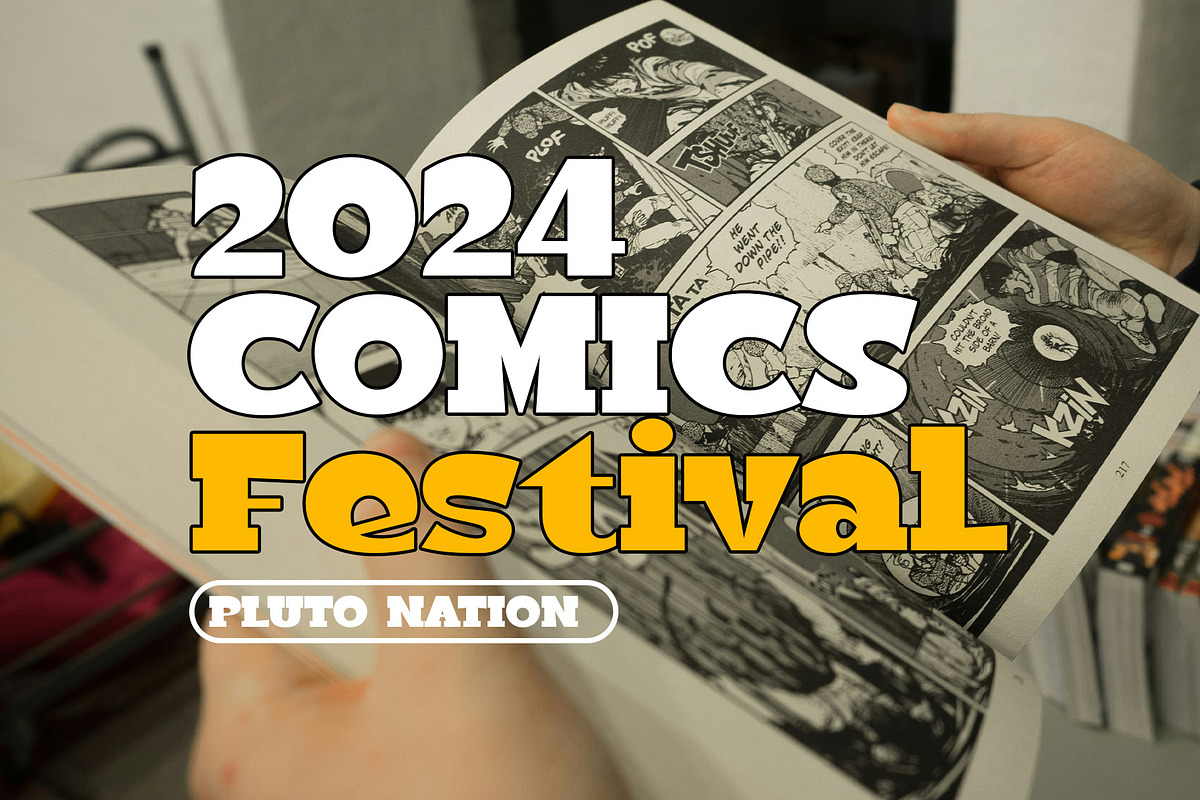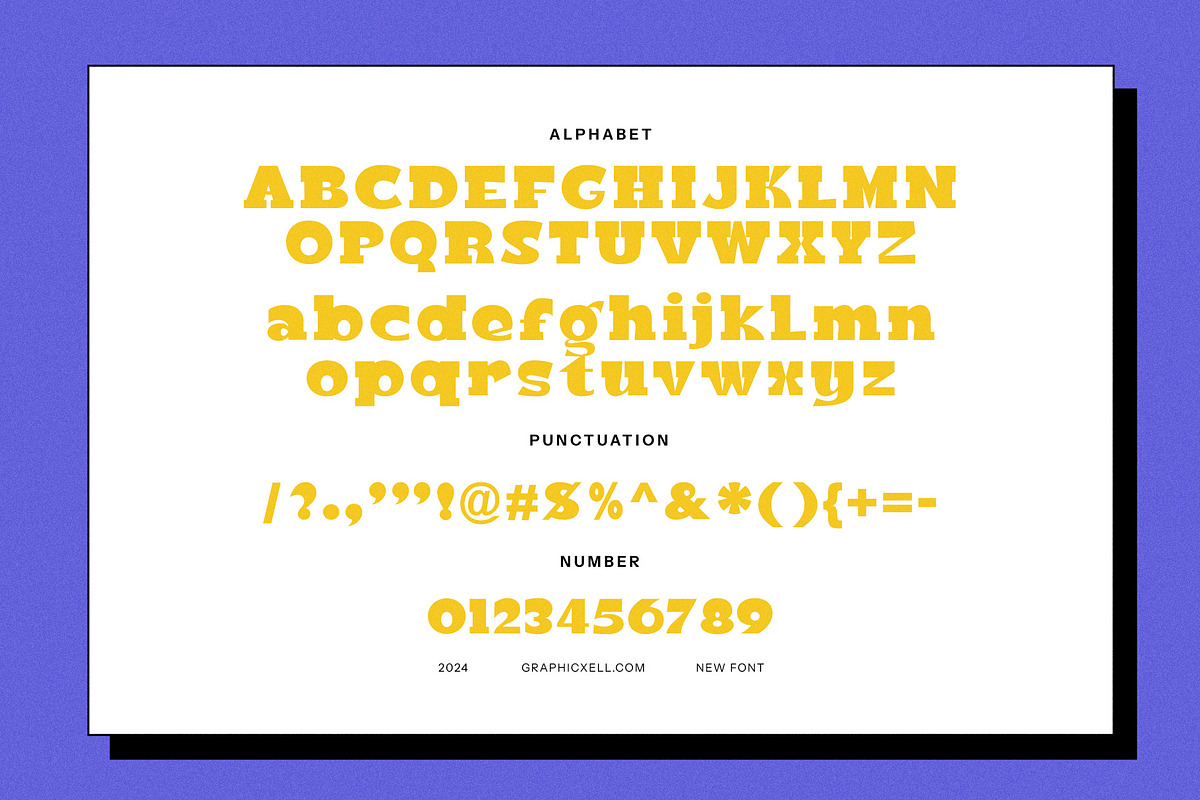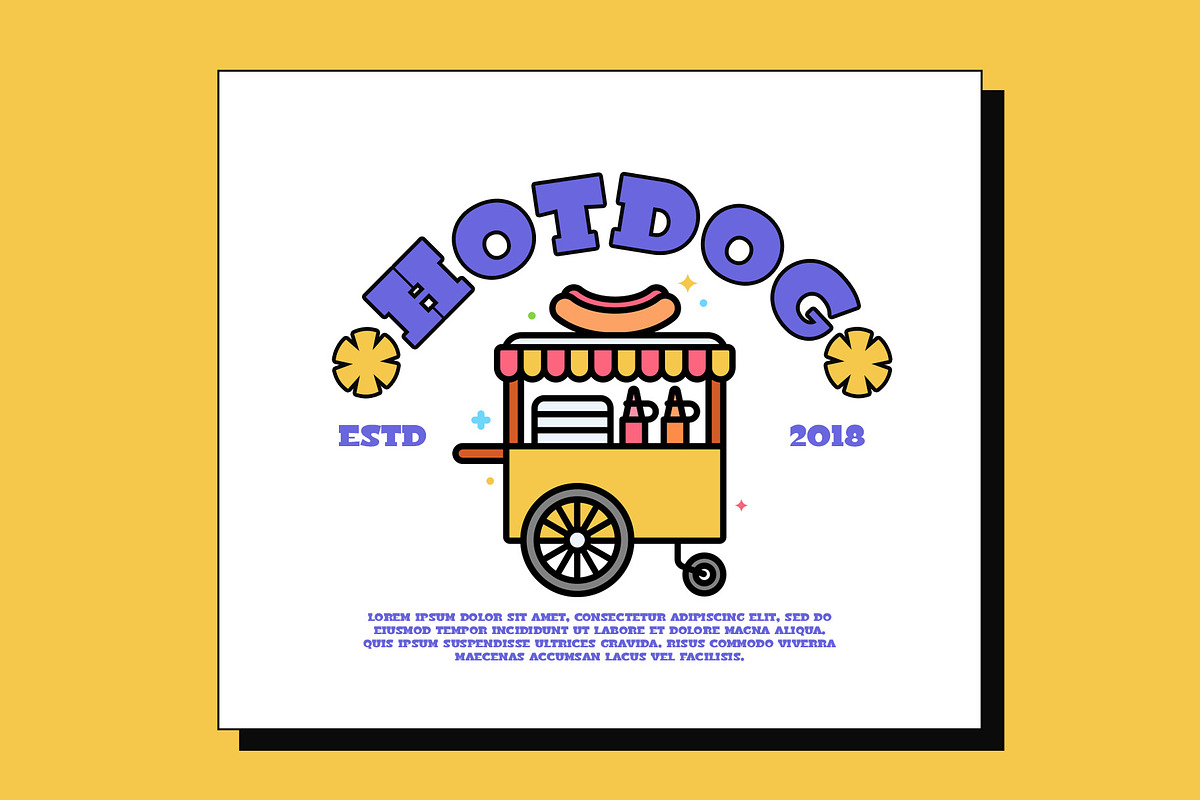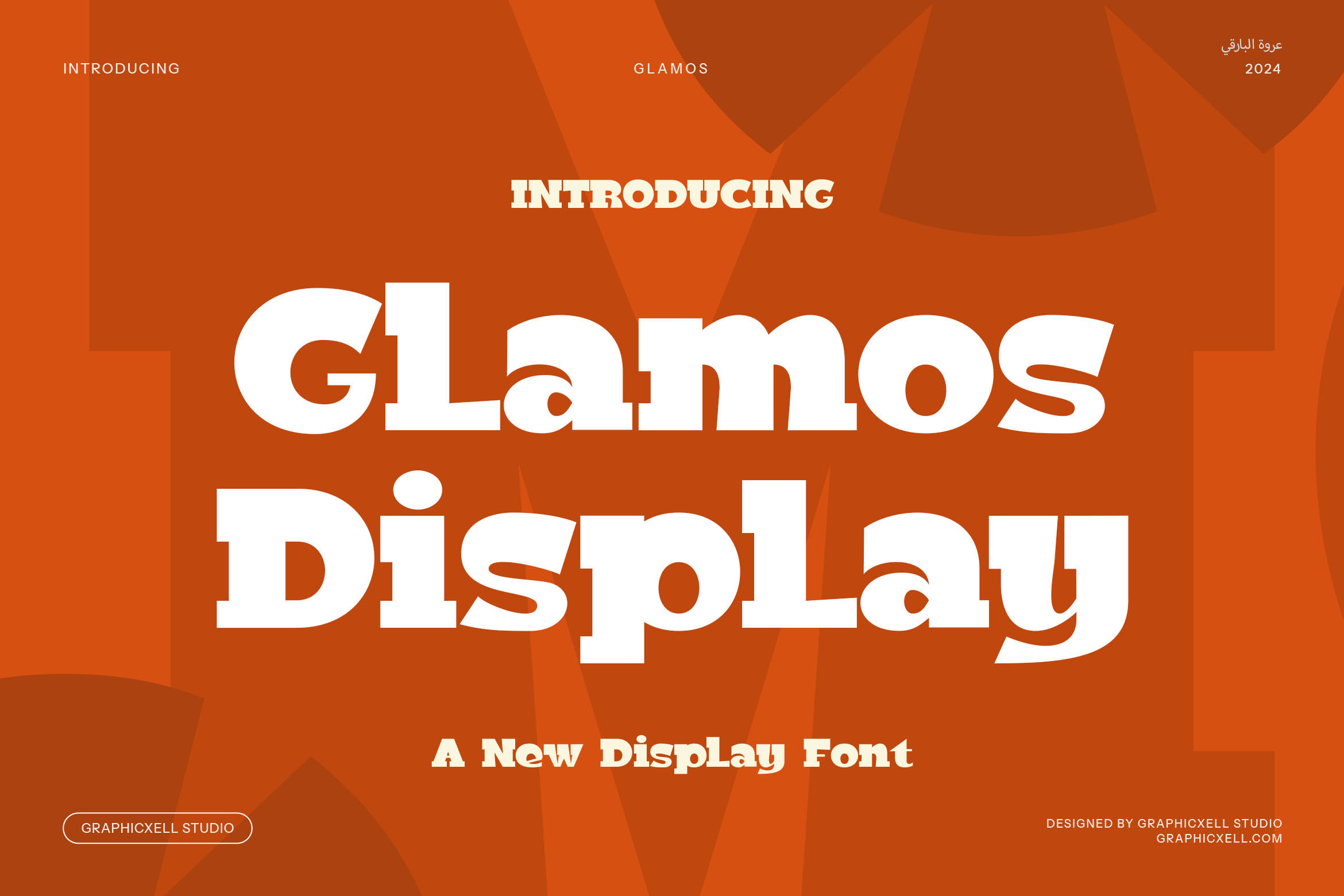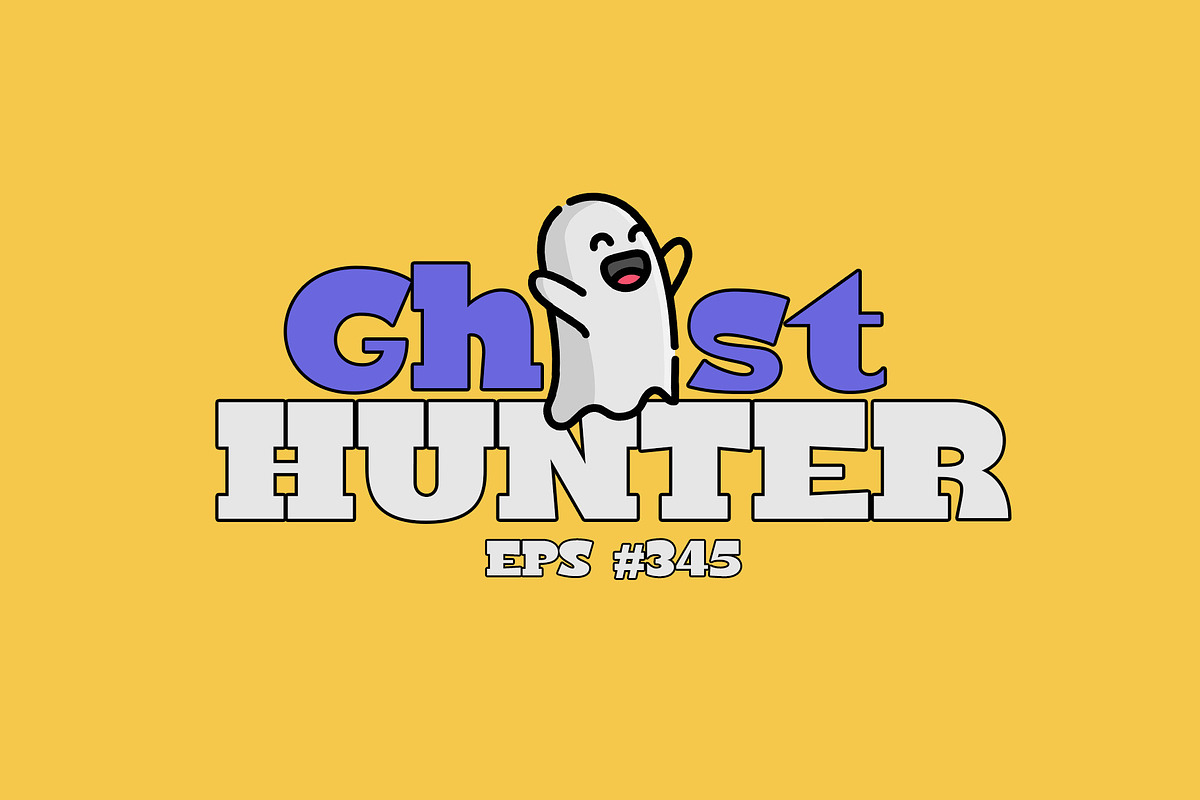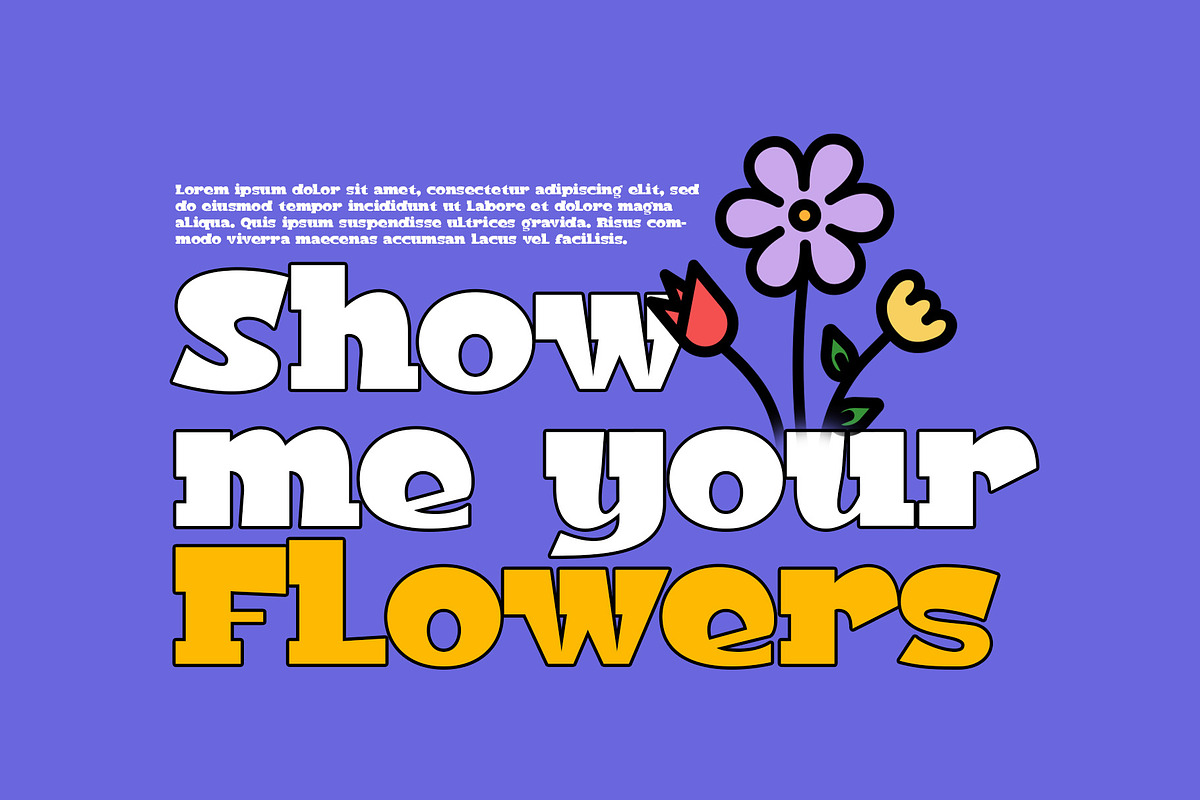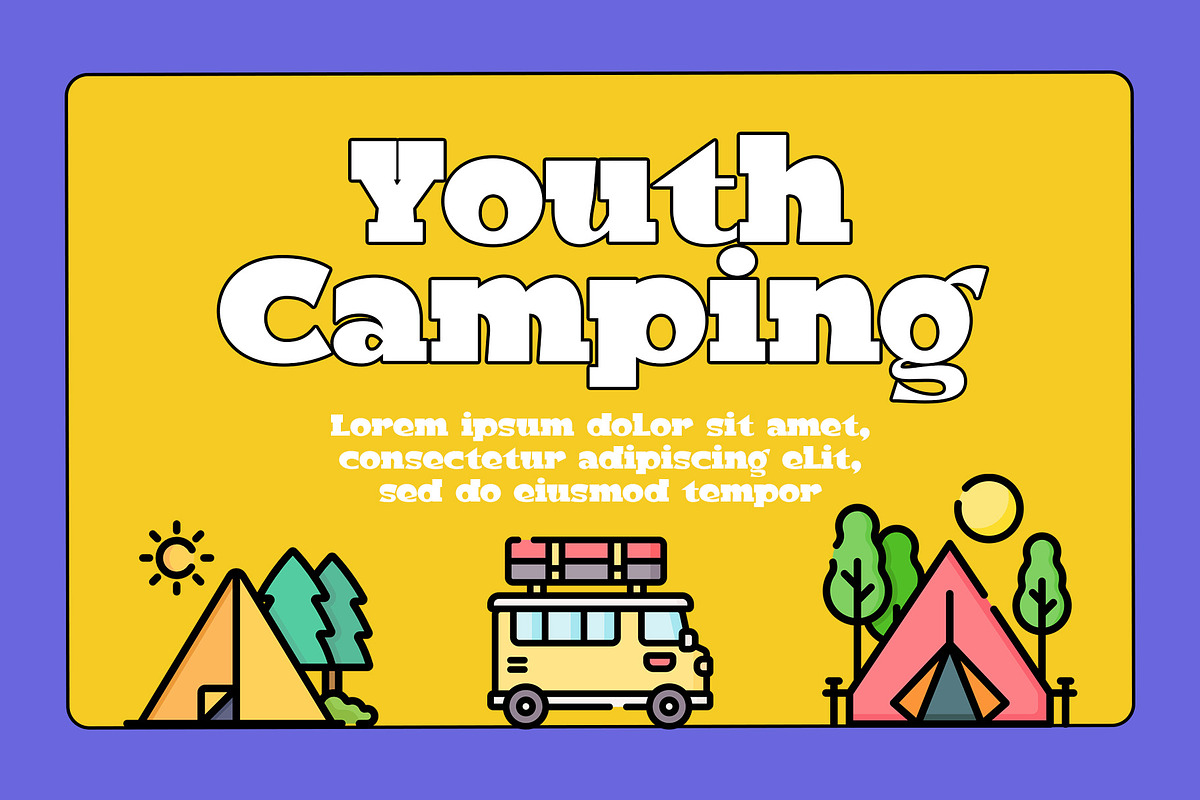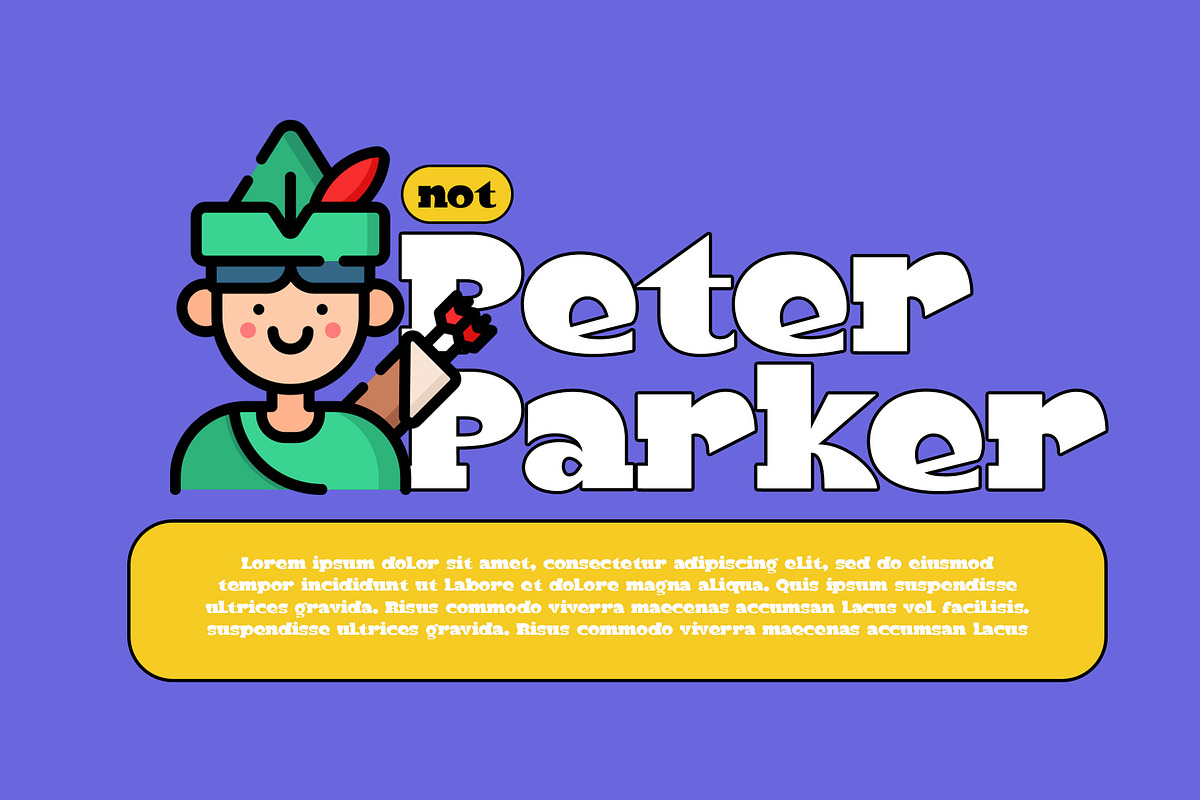
Glamos Display Font
Introducing Glamos, a unique and dynamic display font that captures the essence of retro charm with a playful, modern twist. Designed to bring vintage flair into the present, Glamos features fun, rounded shapes and bold, clean lines that make it perfect for projects that demand attention and personality. Whether you’re working on a logo, branding, or eye-catching advertisement, Glamos offers a distinctive, retro-inspired look that sets your design apart from the rest.
This font’s unique characteristics make it ideal for any project where you want to evoke a sense of nostalgia while keeping things fresh and vibrant. With its bold, sans-serif design, Glamos brings a sense of fun and energy to a variety of creative applications. From magazine spreads to website headers, Glamos adds a lively touch to editorial layouts, ensuring your content stands out with style and flair.
In the world of branding, Glamos is a standout choice for creating memorable logos that resonate with your audience. Its playful yet refined design is equally effective for product packaging, especially in the food and lifestyle sectors, where grabbing attention is key. Whether you’re creating promotional materials, designing for social media, or developing packaging for a new product line, Glamos helps make your brand more memorable and approachable.
With its unique blend of retro aesthetics and modern design sensibilities, Glamos is the perfect font for those looking to make a bold statement in the worlds of branding, advertising, and product design. Bring some fun and vintage appeal to your next